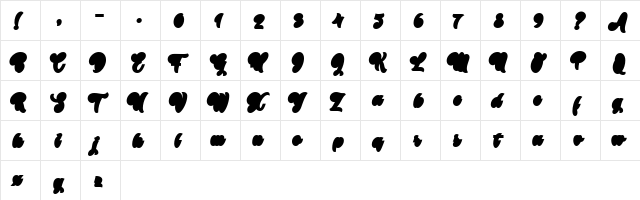
The Mumbai Sticker Demo Shadow Outline
Shadow Outline · Roland Huse Roland Huse ·
DesignerRoland Huse
Design Context for The Mumbai Sticker Demo Typeface
The Mumbai Sticker Demo is built around its visual character rather than neutral utility — its distinctive forms are designed to make an impression at display sizes.
Font Pairing: Pair with a clean neutral sans-serif for body copy to let The Mumbai Sticker Demo's character lead without overwhelming the composition.
Pro Tip: Use The Mumbai Sticker Demo exclusively at display sizes — it was designed to be seen, not read at length. Let a neutral companion handle body copy.